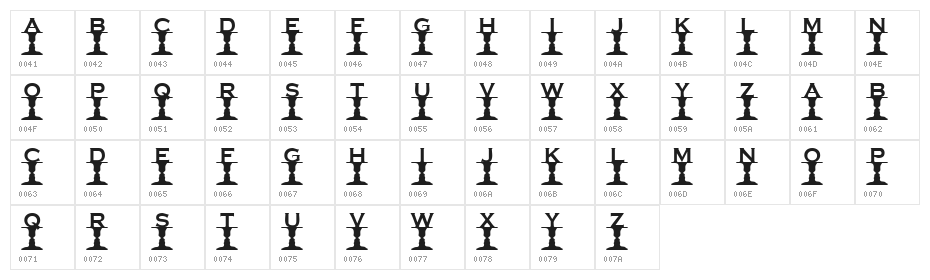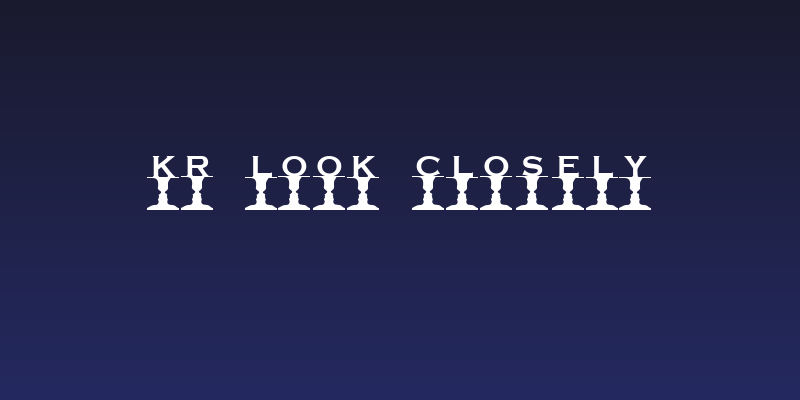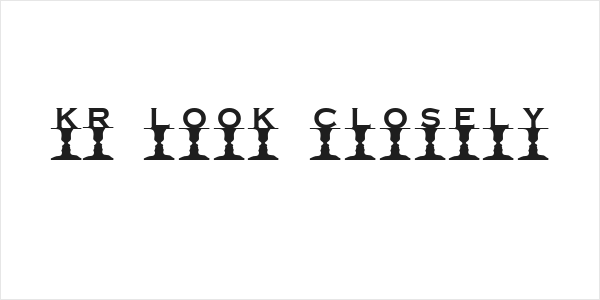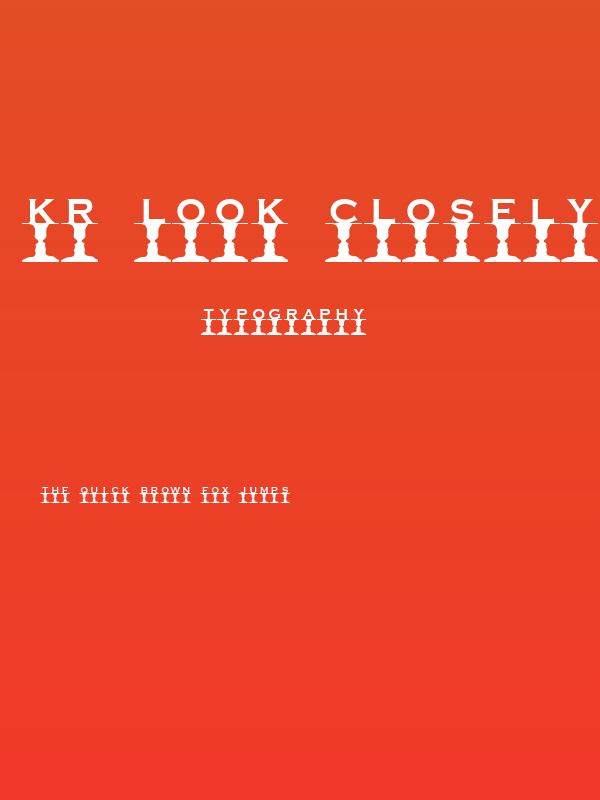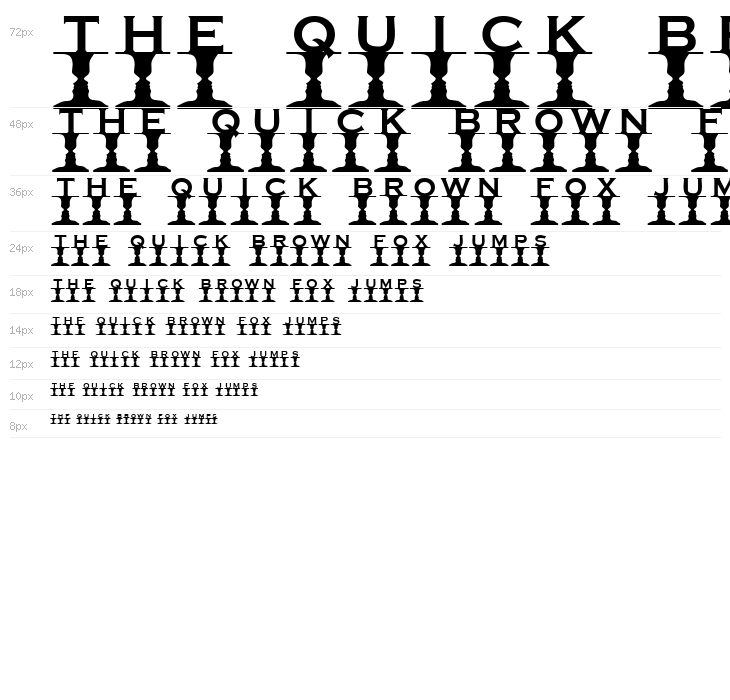
KR Look Closely Font
KR Look Closely Description
This font presents a unique and intriguing design, where each character is cleverly integrated with a silhouette of a chess piece. The letters are bold and clear, making them easily readable despite the intricate design. The chess pieces add a decorative and thematic element, making the font stand out as both artistic and functional. The uppercase letters maintain a consistent height and width, providing a uniform appearance across the board. The font's creative integration of chess motifs makes it ideal for projects related to strategy, games, or intellectual pursuits. Its bold nature ensures visibility and impact, while the decorative elements add a touch of sophistication and thematic relevance.
| Use Case | Logos, Headlines, Themed Events |
| Proposed Projects | Ideal for chess-related branding, game design, educational materials, or themed event promotions. |